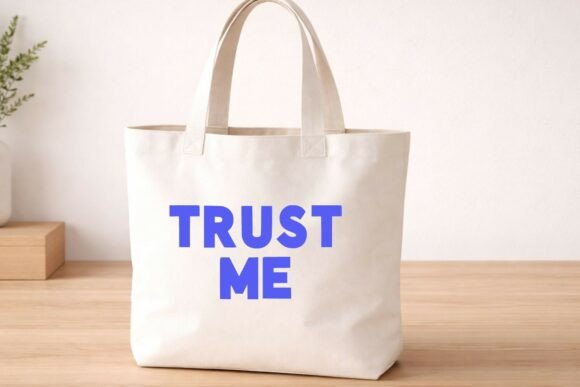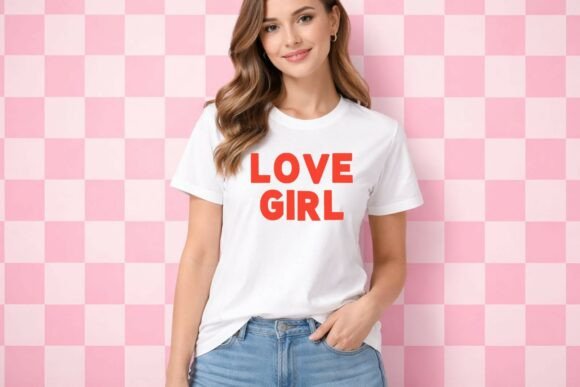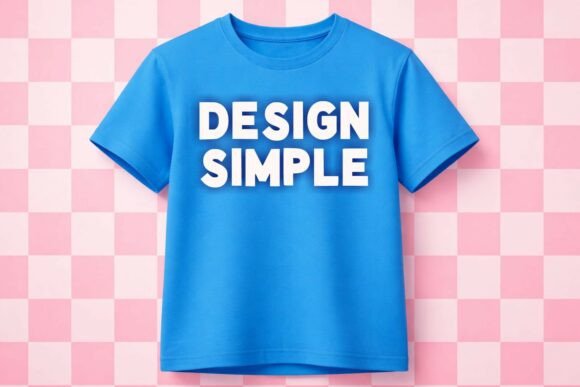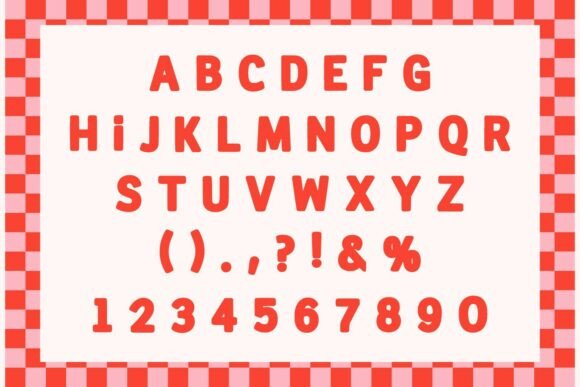
Have you ever stared at a blank page, trying to come up with the perfect font to match your design’s personality? You know, that moment when everything seems to be missing that special something? For designers, finding the right font can make all the difference between a design that’s just okay and one that truly pops.
That’s where Bold Funky Font comes in – a playful and simple comic display font that’s sure to bring a smile to your face. Its bold letterforms and cheerful personality make it the perfect choice for kids’ designs, comics, posters, stickers, greeting cards, and social media graphics. With Bold Funky Font, you can add a lively and energetic touch to any design, giving it a cute and expressive comic look that’s sure to capture attention.
Bold Funky Font Key Features
- Font Family: Bold Funky Font is a unique sans-serif font with a bold and funky feel.
- Unique Characteristics: The font features a distinctive, hand-drawn feel with bold lines and funky shapes, making it perfect for adding a touch of personality to designs.
Designer Review: Bold Funky Font
Overall, I think the Bold Funky Font has some great qualities that make it a decent choice for certain designs. ✨ Here are a few things that work well:
- It’s perfect for creating a statement or drawing attention to specific text.
- The bold and funky style adds a playful touch to any design.
- It’s highly customizable, making it easy to adjust the font to fit your design needs.
However, there are some limitations that might make it less suitable for certain projects. ⚠️ Here are a few things to keep in mind:
- The font might be too over-the-top for more professional or formal designs.
- It can be difficult to read in smaller sizes or at a distance.
- The funky style might not be to everyone’s taste, so it’s essential to consider your target audience.
Overall, I think the Bold Funky Font is a fun and versatile font that can add a lot of personality to a design. Just be mindful of its limitations and use it wisely.
Bold Funky Font is perfect for adding a playful touch to your designs, such as:
– Social media posts and ads
– Flyers and brochures
– Event invitations and party decorations
– Branding and logo designs
– Any design where you want to add a bold and funky feel.
For maximum impact, use Bold Funky Font in combination with bright colors and bold graphics. Experiment with different font sizes and styles to create a unique look. Don’t be afraid to mix and match with other fonts to create a visually interesting design.
Alternatives to Bold Funky Font
Playfair Display is a high-end serif font that is ideal for luxury brands, fashion, and high-end publications. It is more elegant and sophisticated than Bold Funky Font, making it suitable for formal and professional designs. When to use: Luxury brands, high-end publications, formal invitations.
Great Vibes is a script font that is perfect for adding a touch of elegance and sophistication to designs. It is more refined and polished than Bold Funky Font, making it suitable for weddings, fashion, and beauty brands. When to use: Weddings, fashion, beauty, and luxury brands.
Alex Brush is a beautiful script font that is ideal for designs that require a touch of whimsy and elegance. It is more delicate and feminine than Bold Funky Font, making it suitable for weddings, baby showers, and feminine brands. When to use: Weddings, baby showers, feminine brands, and stationery.